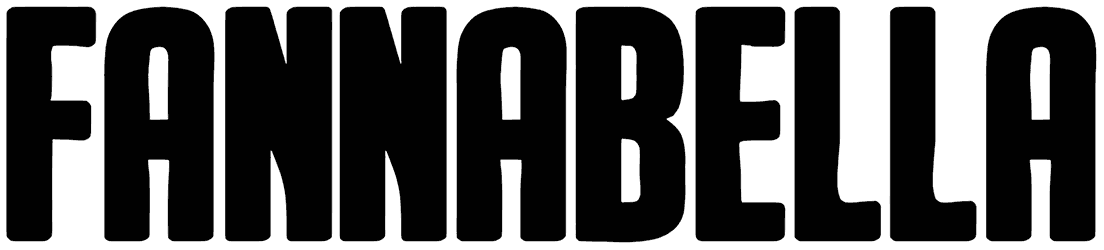
Fannabella Font
The result of adding a bit of creativity and accurate curves to a casual sans serif font would be Fannabella, a magical all-caps old-school font that leads to a sense of comfort, dreaminess, playfulness, and dynamism. You can easily persuade the audience to follow your graphic content, including posters, web pages, applications, or magazines, with the help of this sans serif font.
FANNABELLA is a thick brush display font, it provides a level of detail that you can’t get with traditional typography.Bold Font Brush
This is a brush font with basic sans serif bold style. It will be perfect for posters, packaging, advertising, headlines, branding, signage, and whatever you want to look and feel in urban areas.